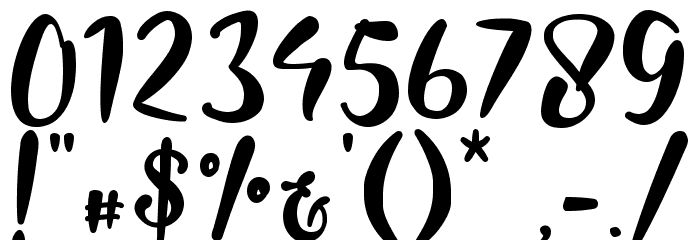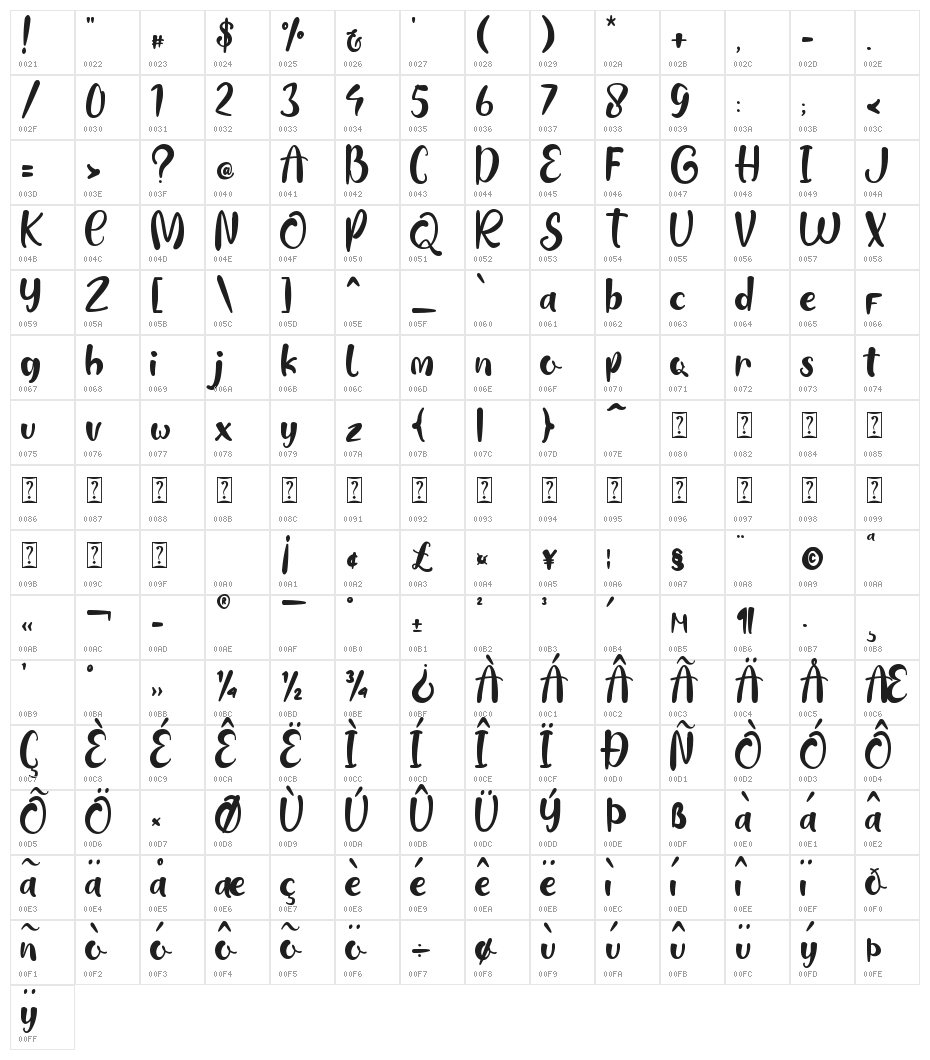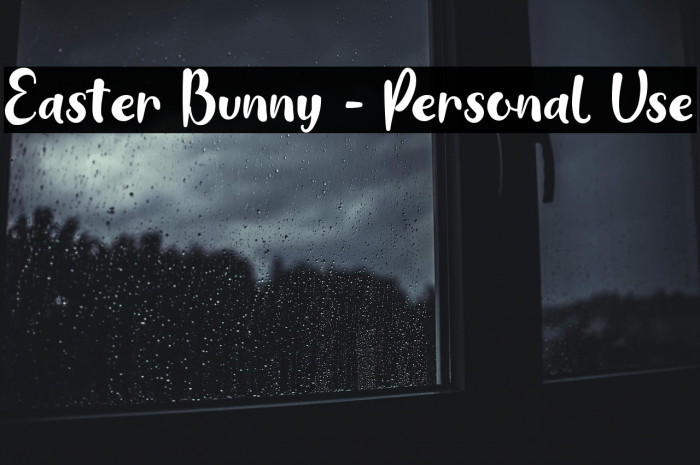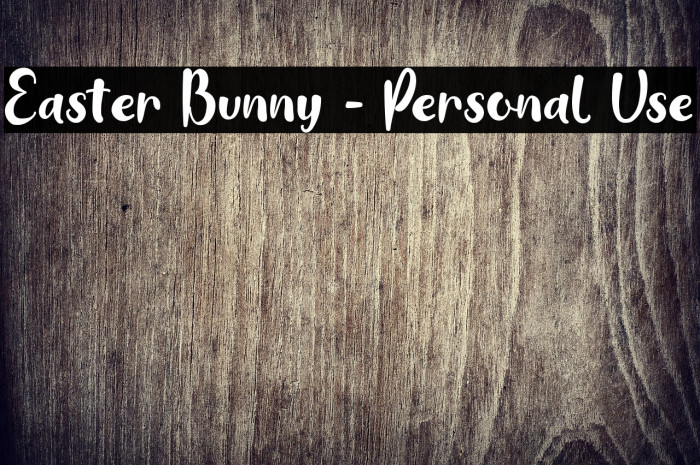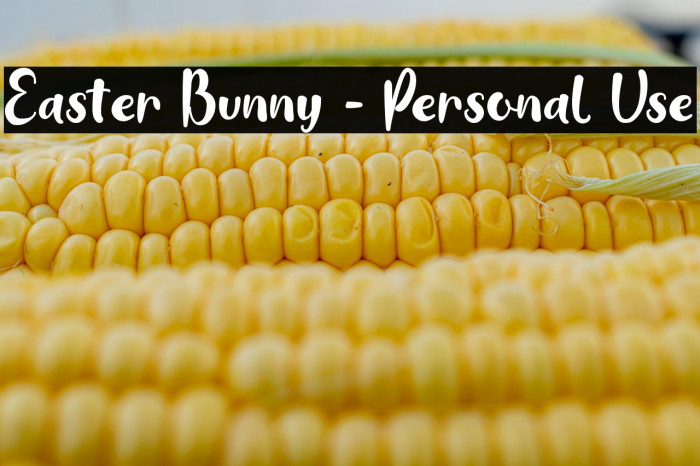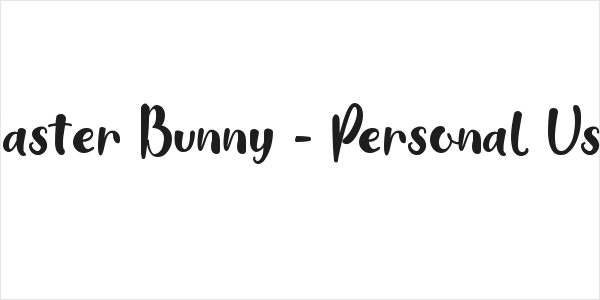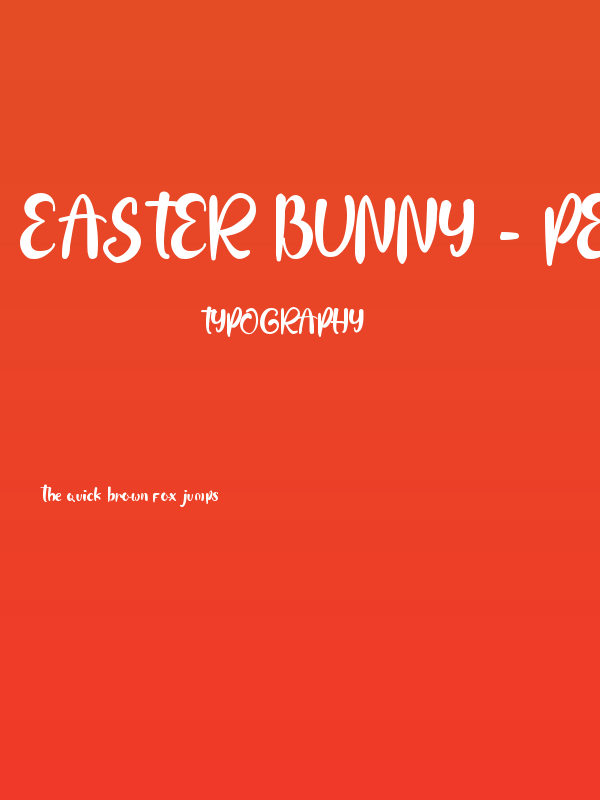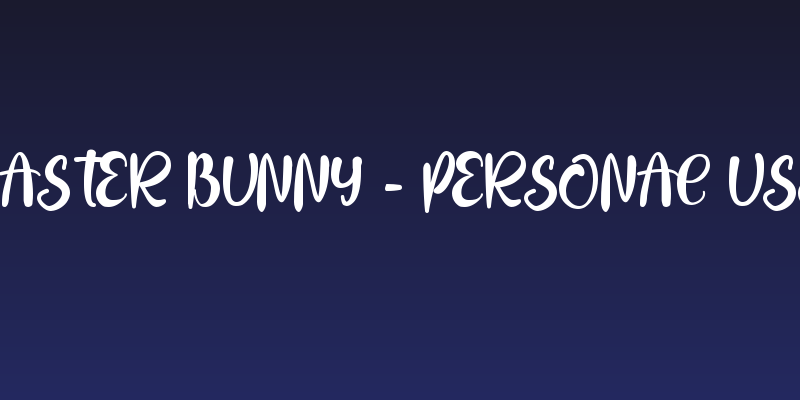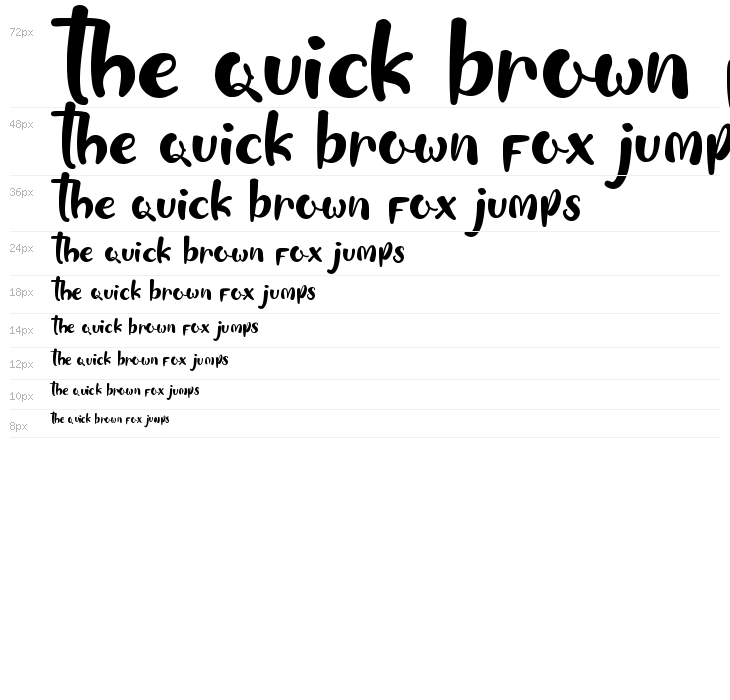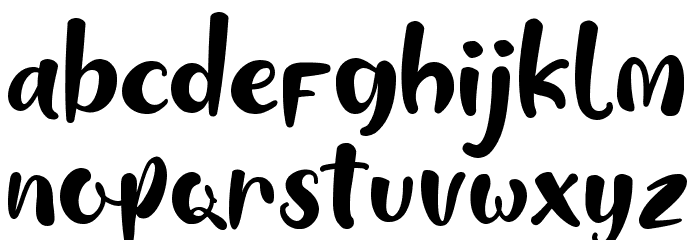
Easter Bunny - Personal Use Font
Easter Bunny - Personal Use Description
This playful and whimsical font features a handwritten style with a lively and energetic feel. The characters are bold and rounded, giving them a friendly and approachable appearance. The uppercase and lowercase letters maintain a consistent style, with smooth curves and a slight slant that adds to the casual aesthetic. The numbers and special characters are equally expressive, complementing the overall design. This font's unique personality makes it suitable for creative and informal projects.
| Proposed Projects | Ideal for greeting cards, children's books, playful branding, and social media graphics. |